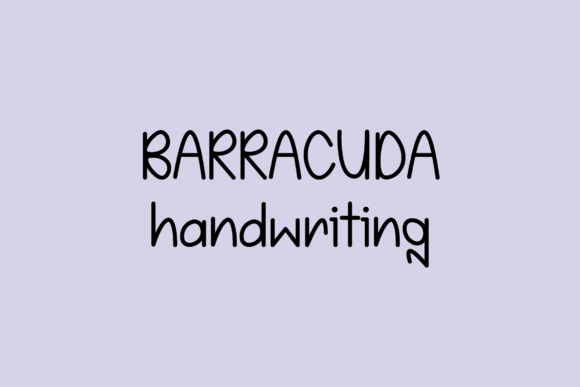
Barracuda Font
Prepare yourself to be mesmerized by Barracuda Font, a captivating creation from Woracado that exudes charm and playfulness. This enchanting script font dances across your designs like a ray of sunshine, adding a touch of whimsical delight to every letter and word.
With its lively strokes and endearing quirks, Barracuda Font is the perfect choice for those seeking to make a statement. Whether you're designing wedding invitations, greeting cards, posters, or social media graphics, this font is guaranteed to leave a lasting impression.
Imagine your wedding invitations adorned with the graceful curves and playful charm of Barracuda Font. Your guests will be captivated by the sheer elegance and uniqueness of your choice, setting the tone for a truly memorable celebration.
Or perhaps you're working on a whimsical poster for a children's event. Barracuda Font will bring your designs to life, creating a sense of wonder and excitement that will capture the hearts of young and old alike.
The versatility of Barracuda Font is truly remarkable. Its ability to transform ordinary designs into extraordinary works of art is simply magical. Whether you're a seasoned designer or just starting out, this font is sure to become your go-to choice for adding a touch of enchantment to your projects.
So, dive into the world of Barracuda Font and let your creativity soar. Embrace the magic of this enchanting script and watch as your designs blossom into masterpieces.